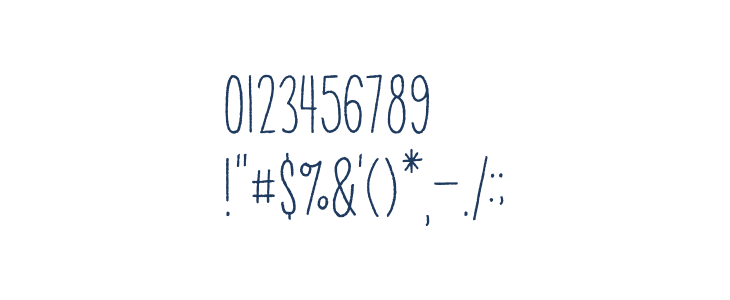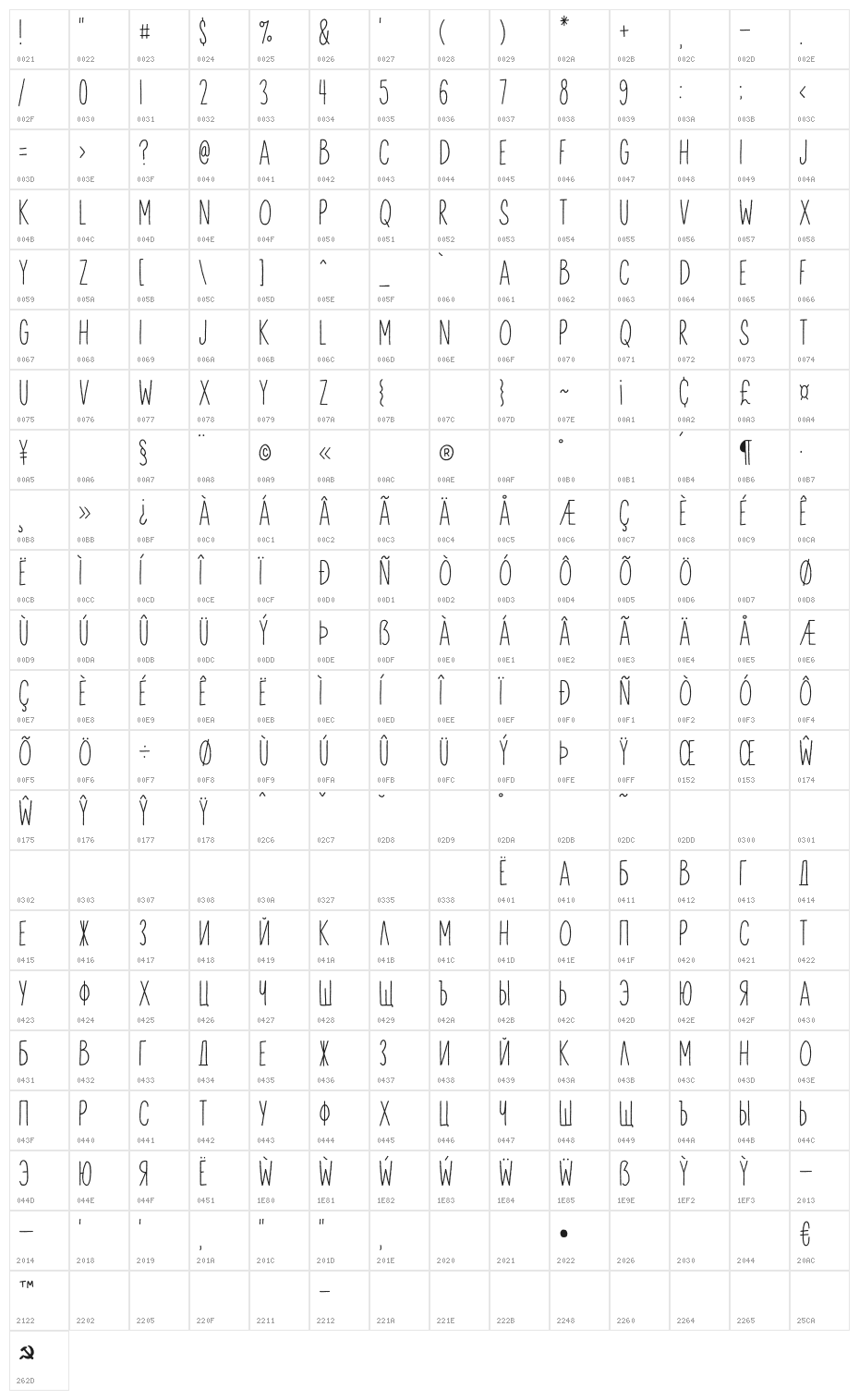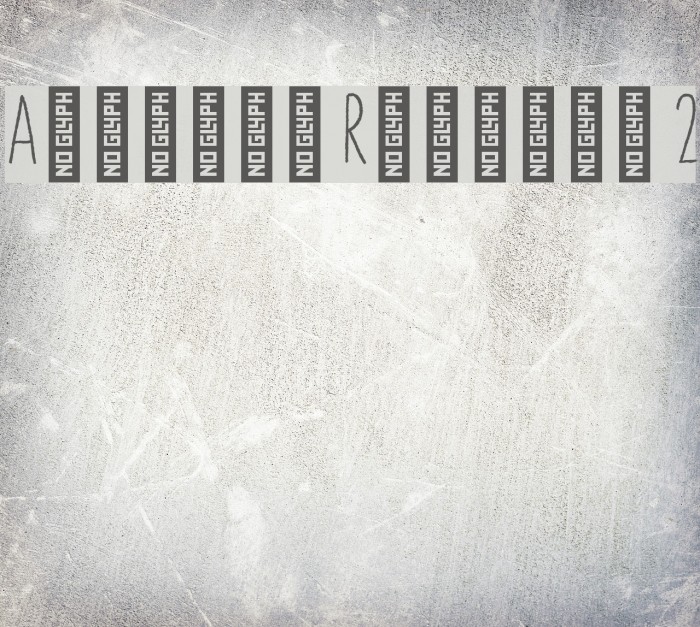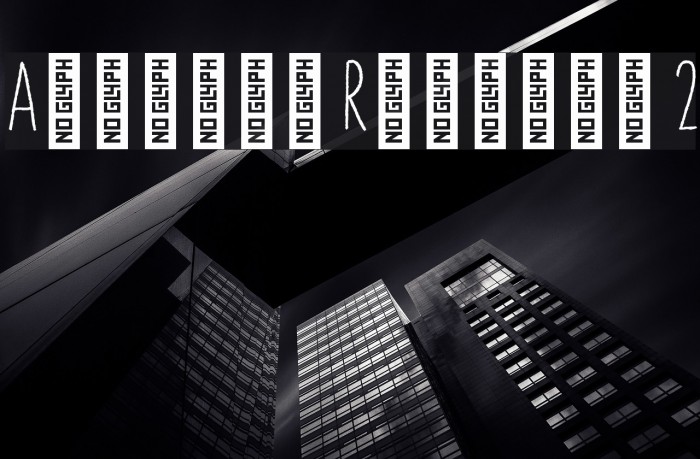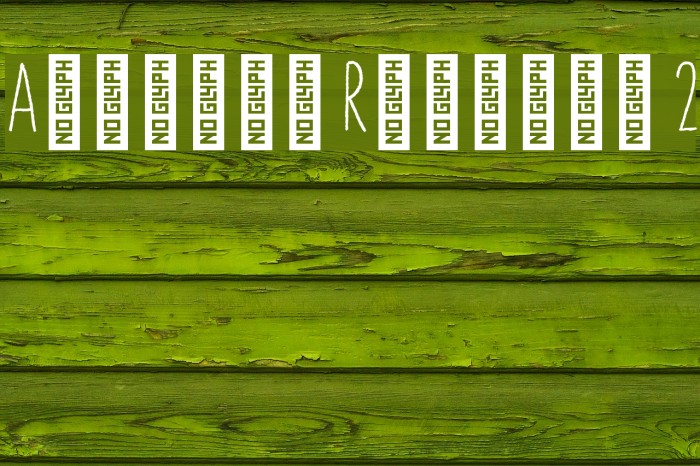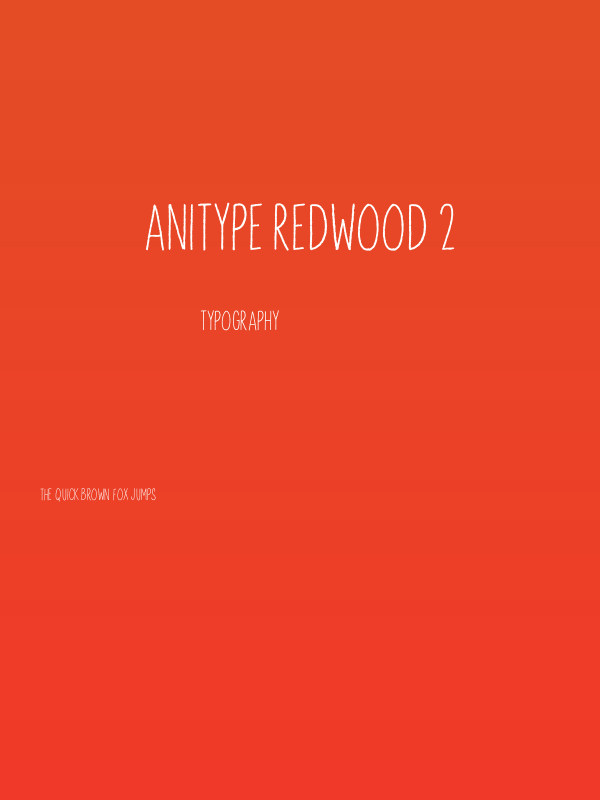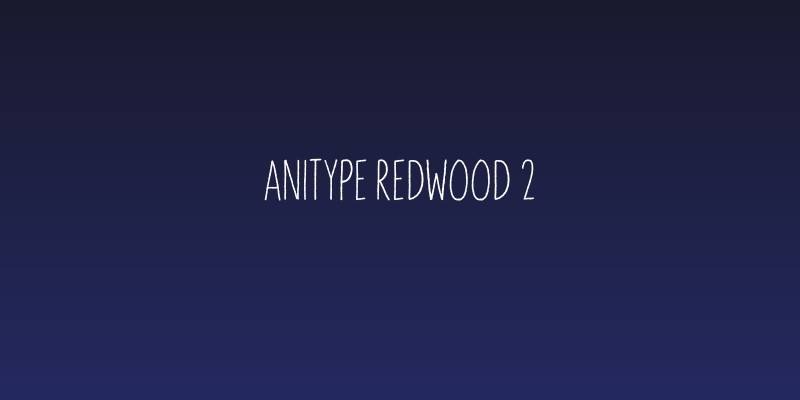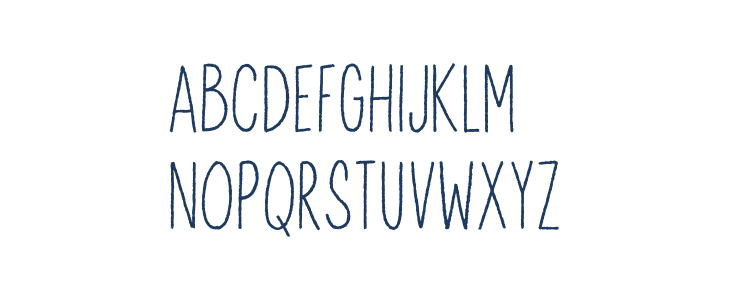
Anitype Redwood 2 Font
Anitype Redwood 2 Description
This font features a handwritten style with a casual and organic appearance. The uppercase letters are tall and narrow, giving a sense of elegance and sophistication. The numbers and special characters maintain the same handwritten quality, ensuring consistency across all glyphs. The strokes are slightly irregular, adding a personal touch that mimics natural handwriting. This font is ideal for projects that require a personal or informal tone, such as greeting cards, invitations, or personal branding. Its unique style makes it stand out, while still being legible and versatile.
| Use Case | Headlines, Informal text, Personal projects |
| Proposed Projects | Ideal for greeting cards, invitations, personal branding, and informal communications. |